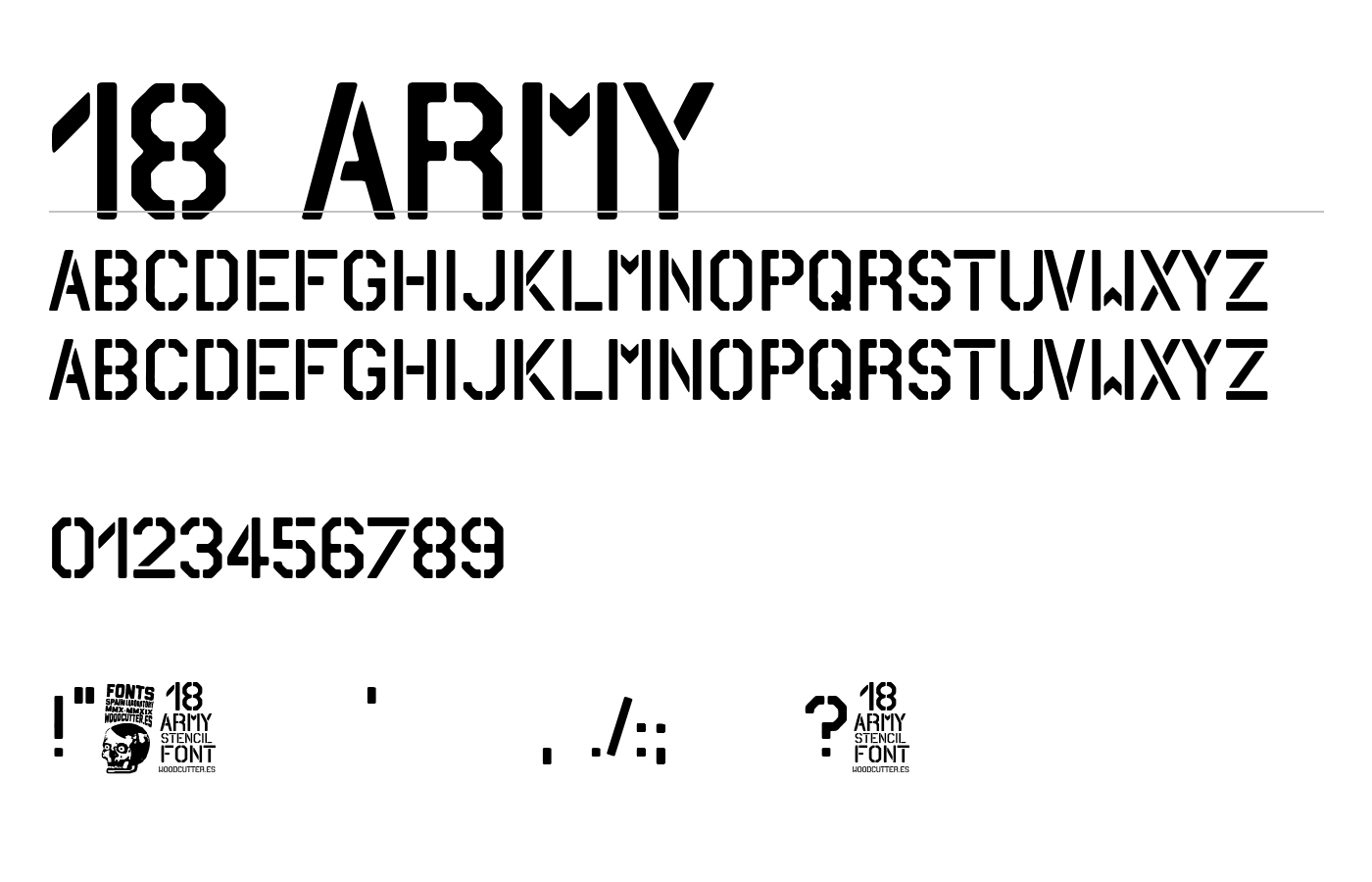
The 18 ARMY font is a bold, condensed stencil typeface with a strong military aesthetic, featuring sharp, geometric cutouts typical of classic army stencils. Its high contrast and structured letterforms give it a rugged, utilitarian feel, making it perfect for designs that need a disciplined, industrial, or vintage military vibe. Ideal for logos, posters, and headlines, this font delivers a powerful and commanding presence.
18 ARMY Font
About 18 ARMY Font